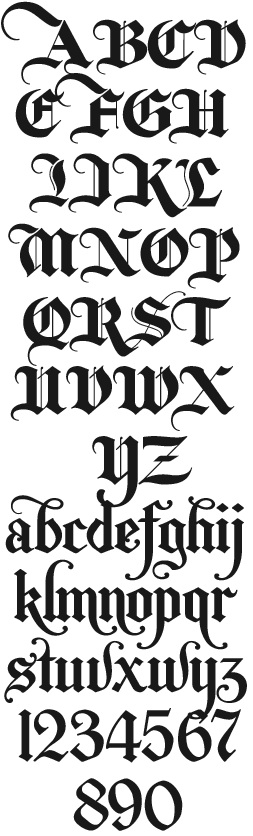
LHF New English Features rounded corners for a softer and slightly easier to read appearance. Includes several stylistic alternates which can be substituted automatically in OpenType compatible programs.